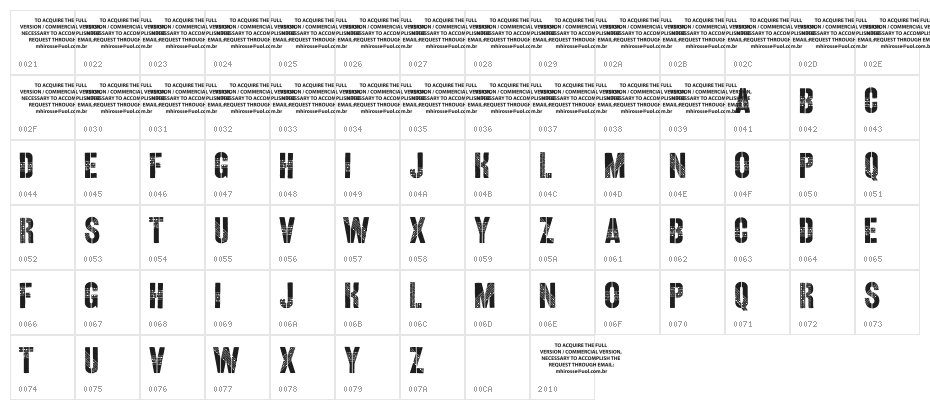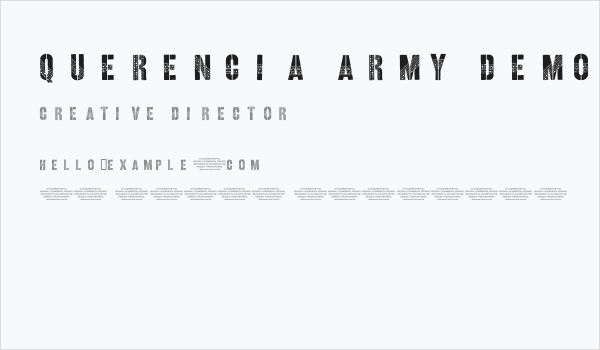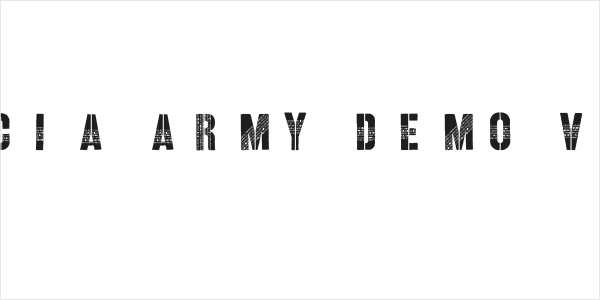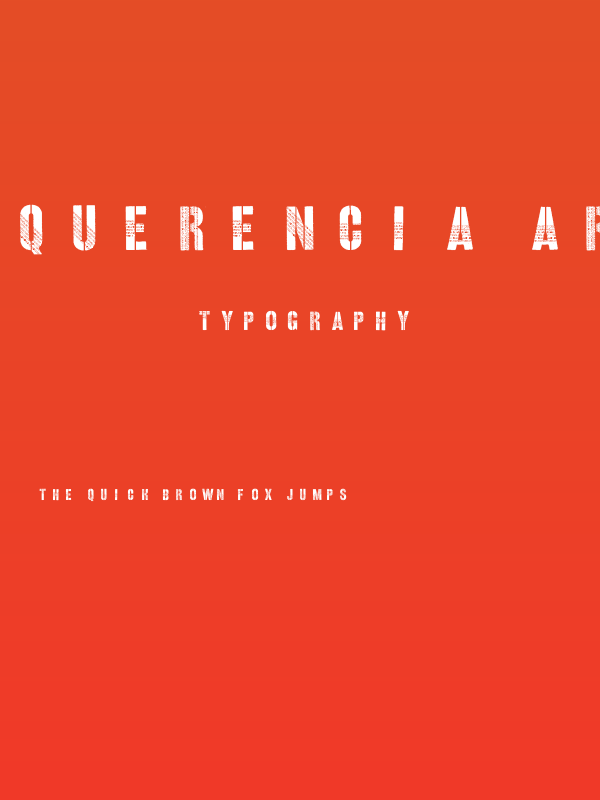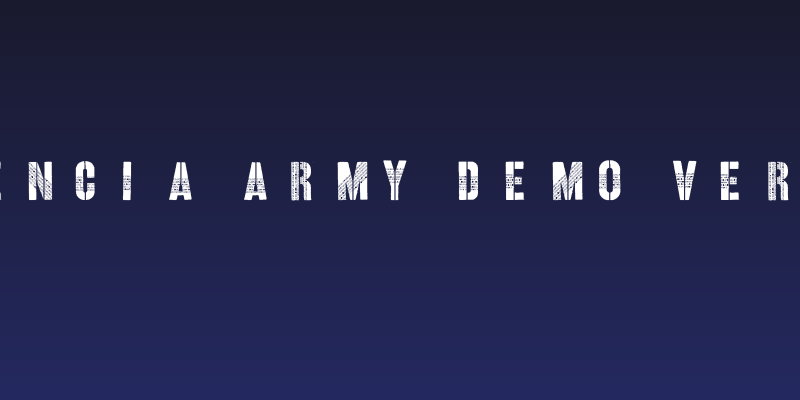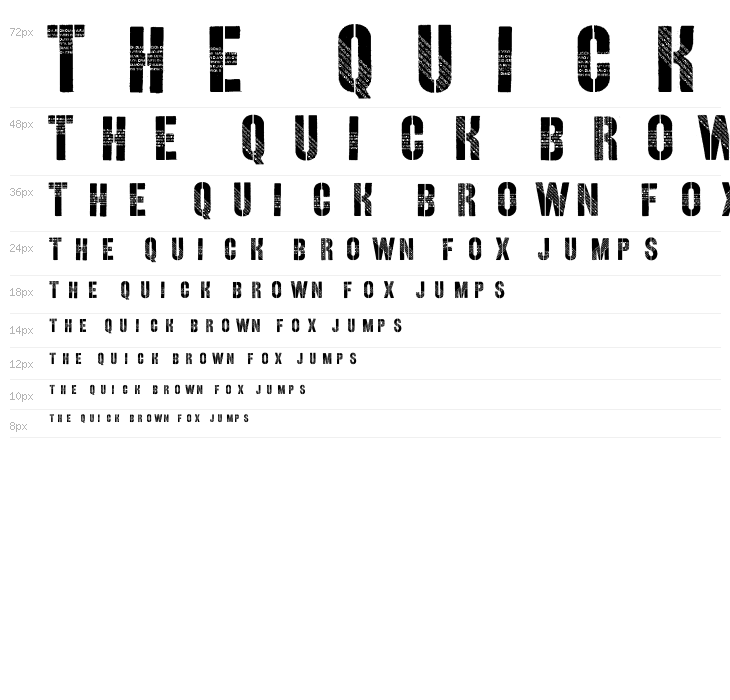
Querencia Army DEMO VERSION Font
Querencia Army DEMO VERSION Description
This font features a bold, military-inspired design with a distressed texture that gives it a rugged, worn appearance. The uppercase letters are blocky and robust, conveying strength and authority. The distressed effect adds a layer of complexity, making it ideal for projects that require a vintage or grunge aesthetic. The characters are evenly spaced, ensuring readability while maintaining a visually striking presence. This font is perfect for designs that aim to capture a sense of toughness and resilience, such as military-themed posters, adventure branding, or outdoor gear promotions.
Overall StyleVintage
Proposed ProjectsIdeal for military-themed designs, adventure branding, outdoor gear promotions, and vintage posters.